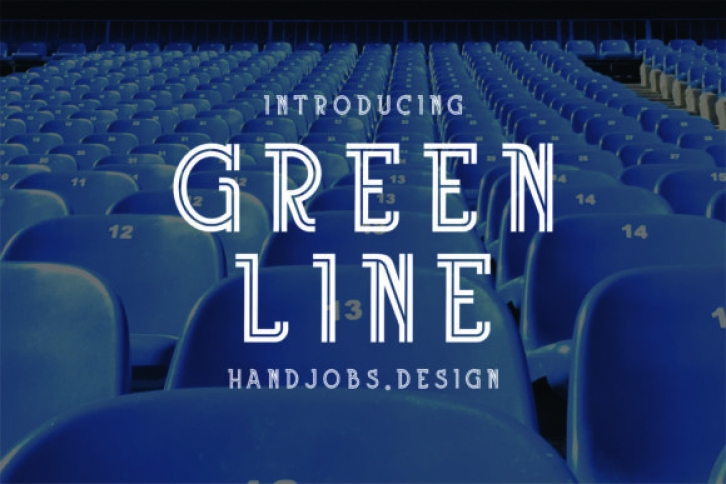
The Green Line is an unique serif font. It includes uppercase letters which were inspired by sports
It’s suitable for logos, branding, layouts, posters, and every other design which needs an unique look.